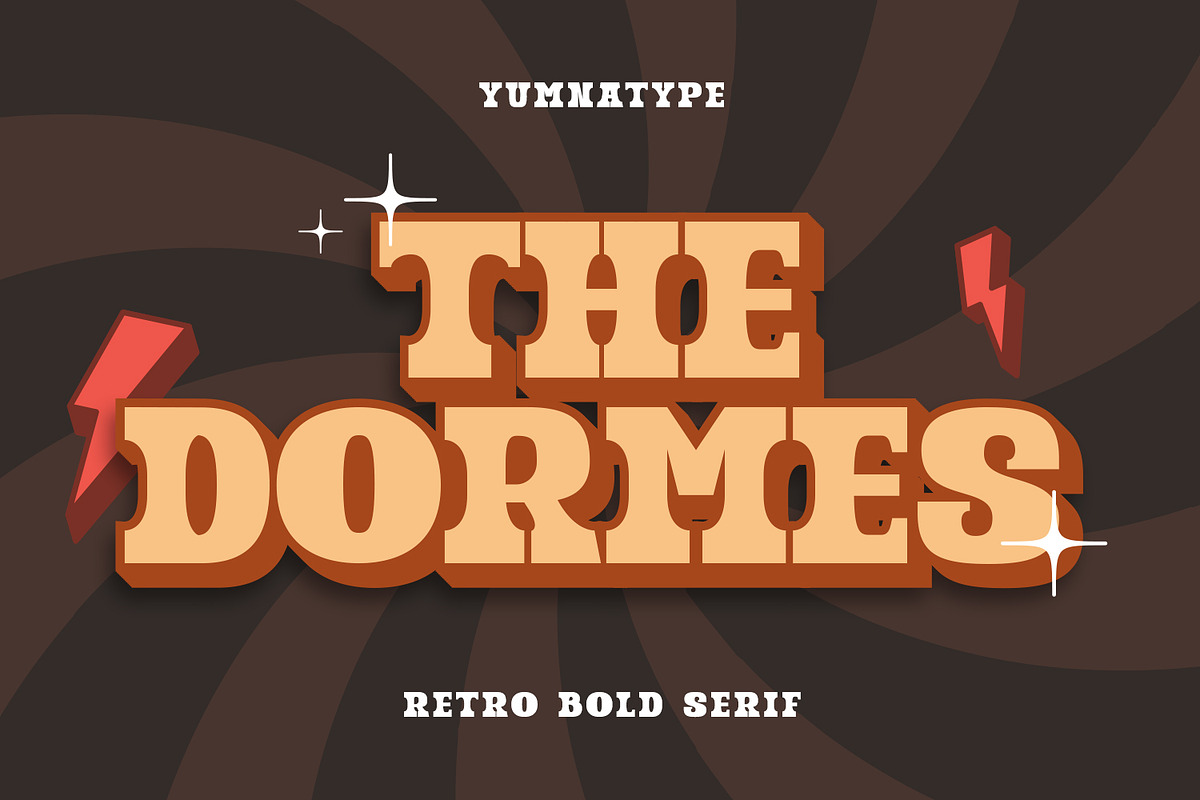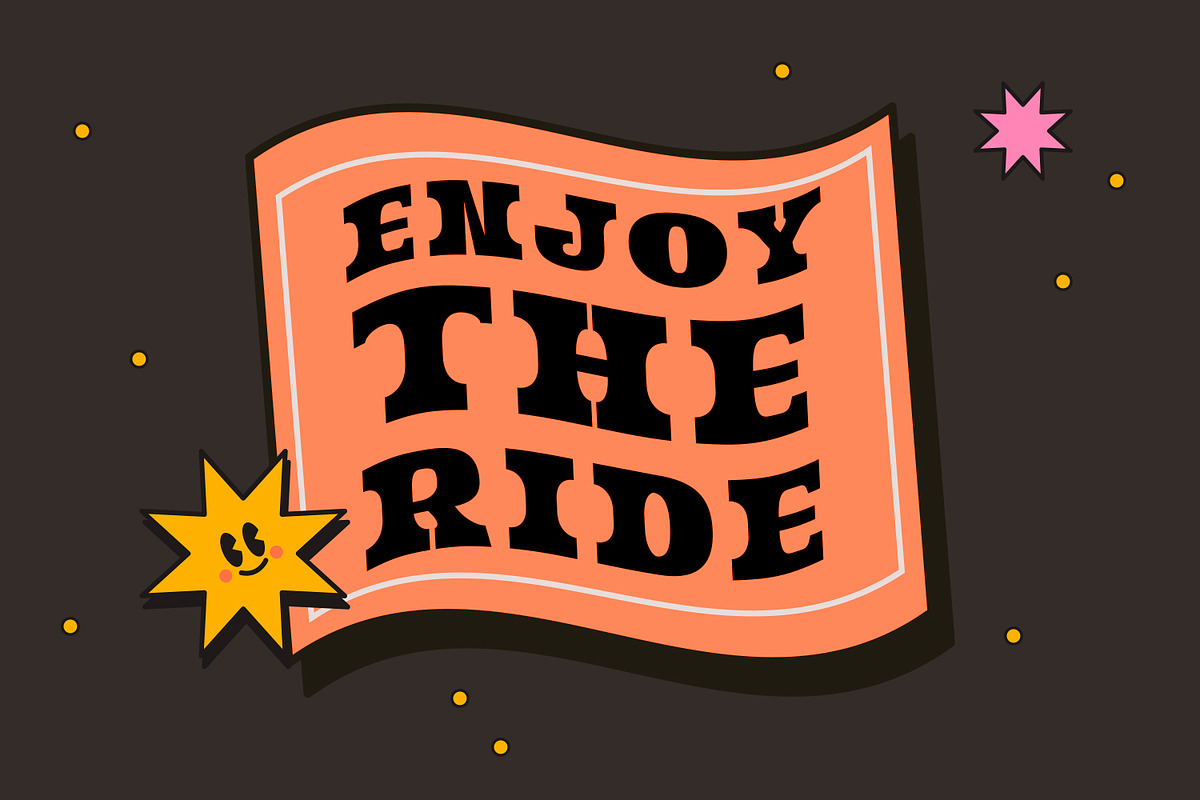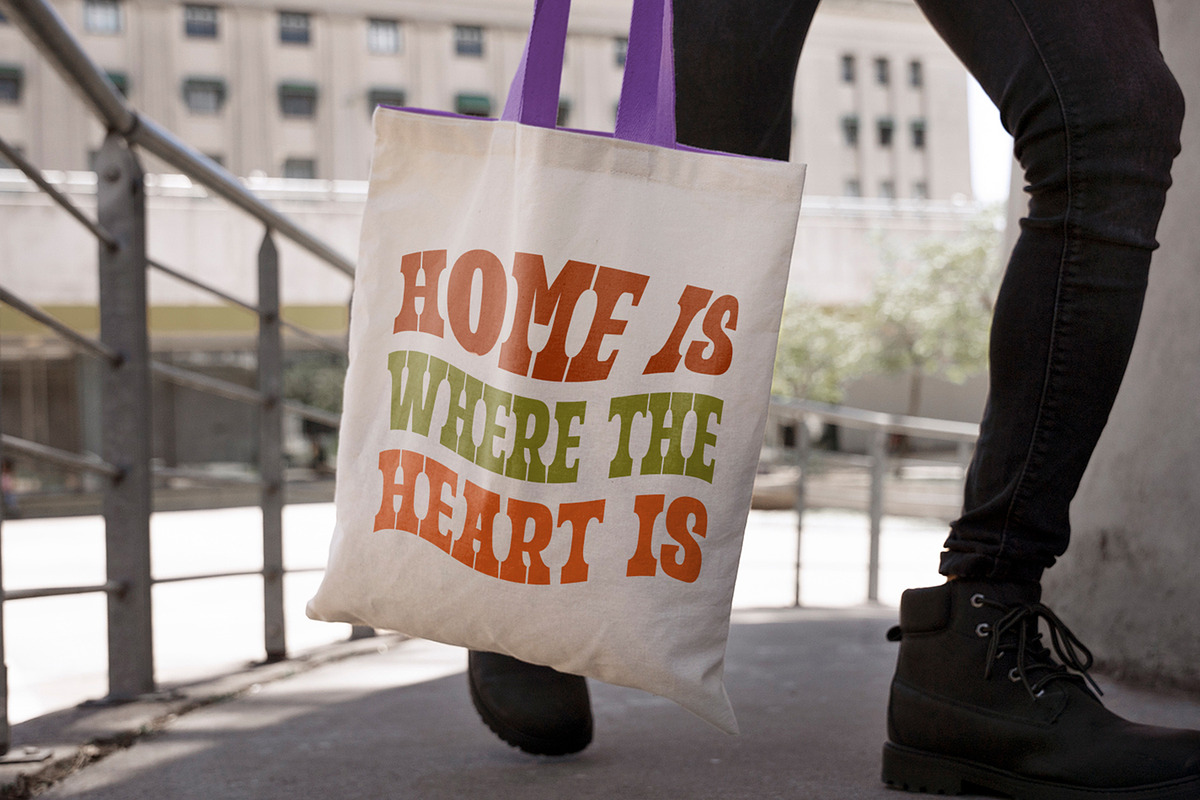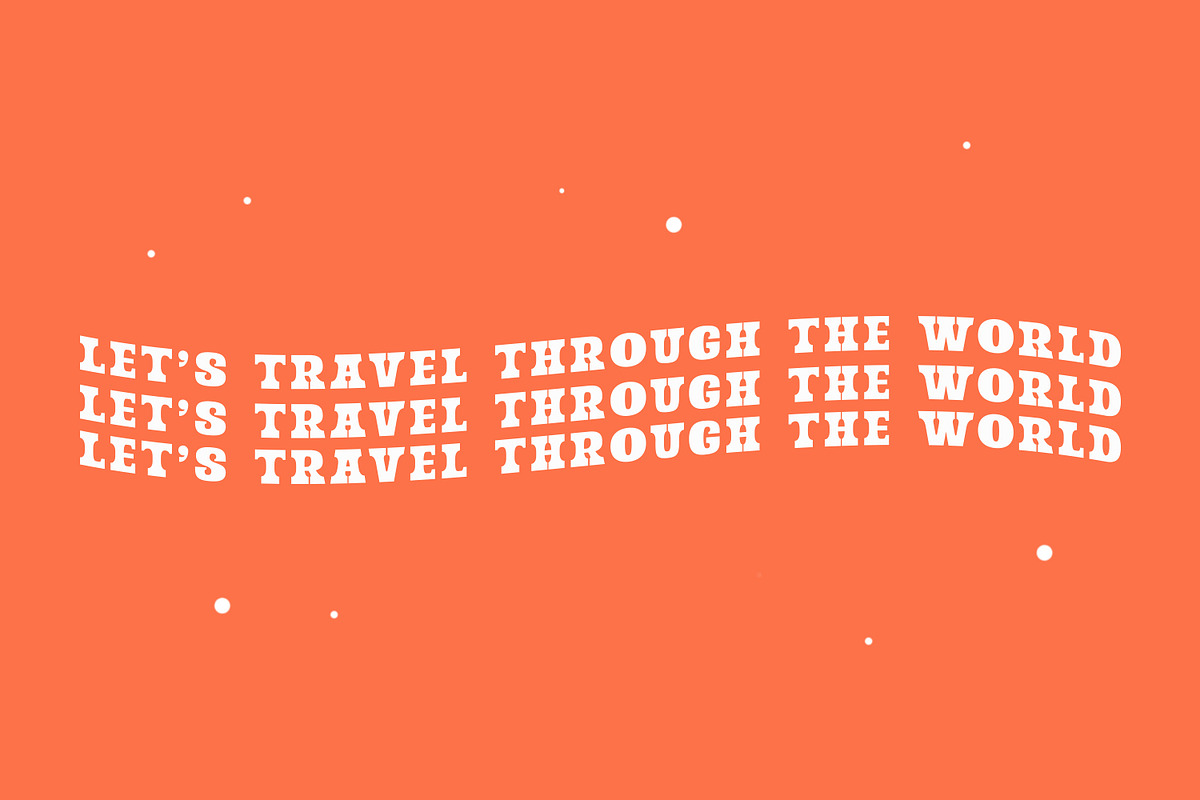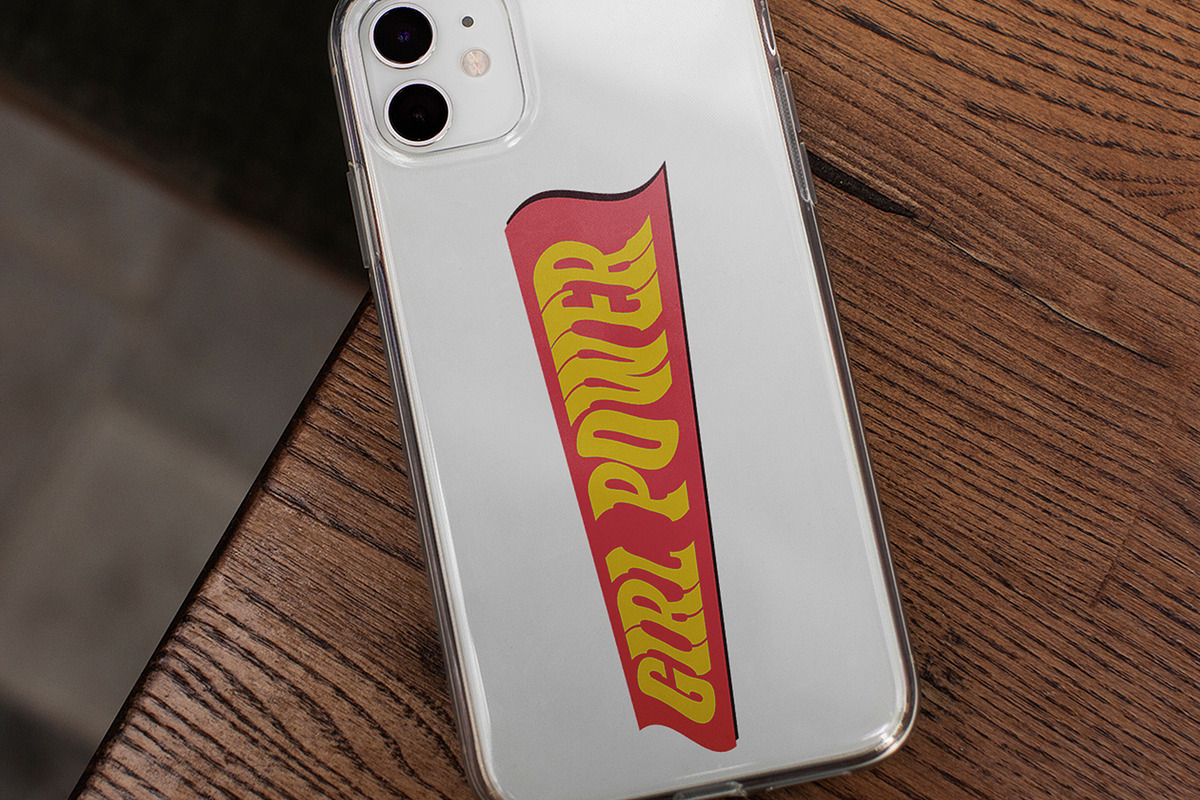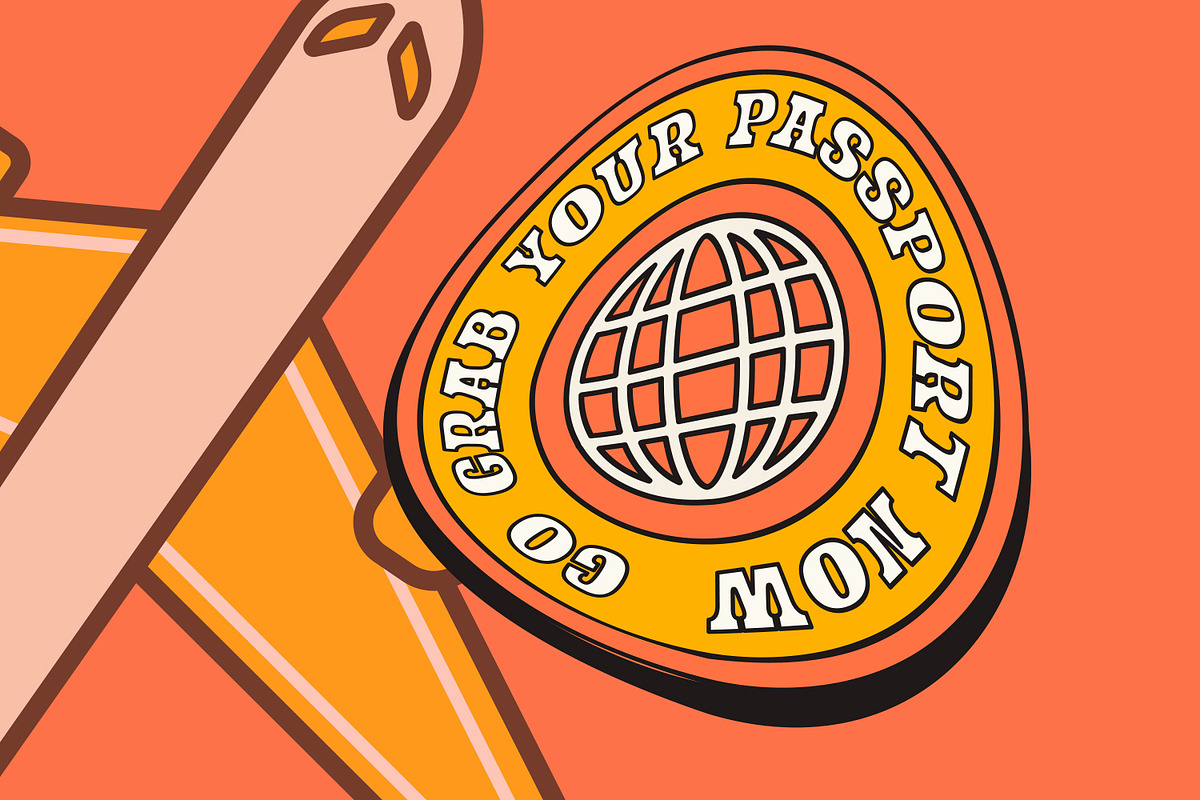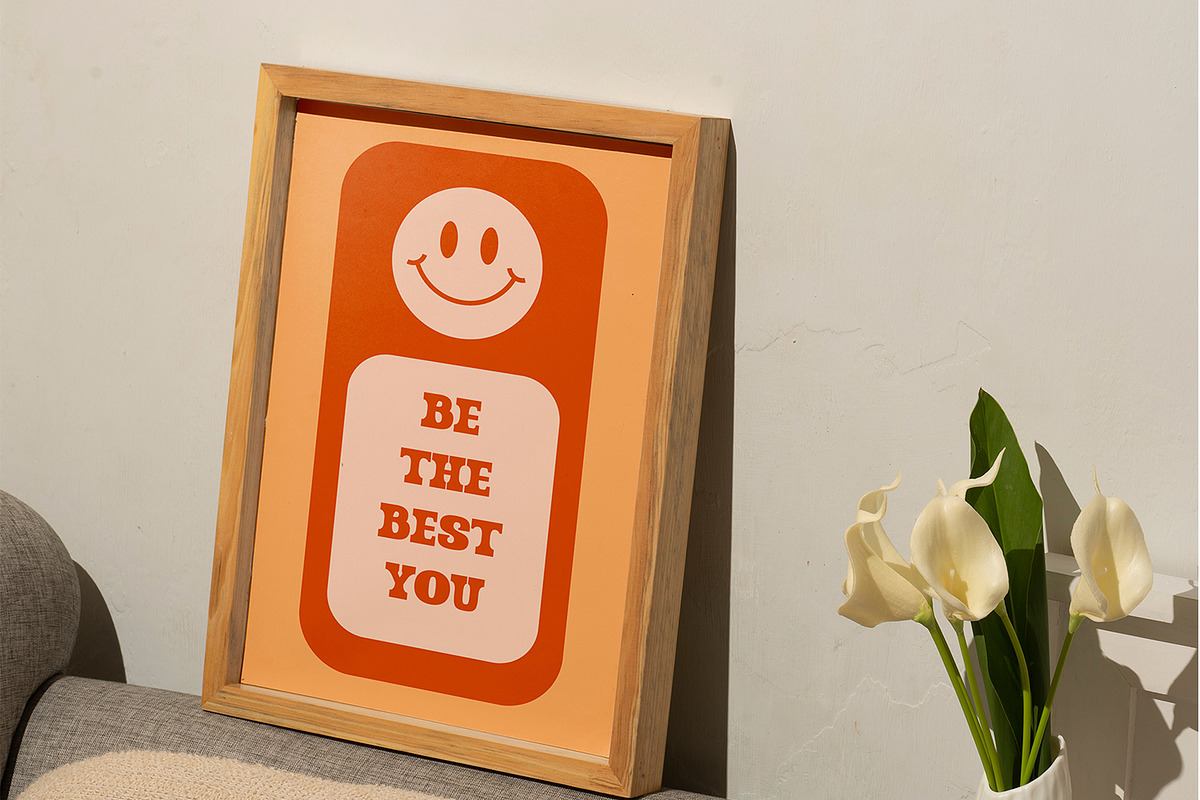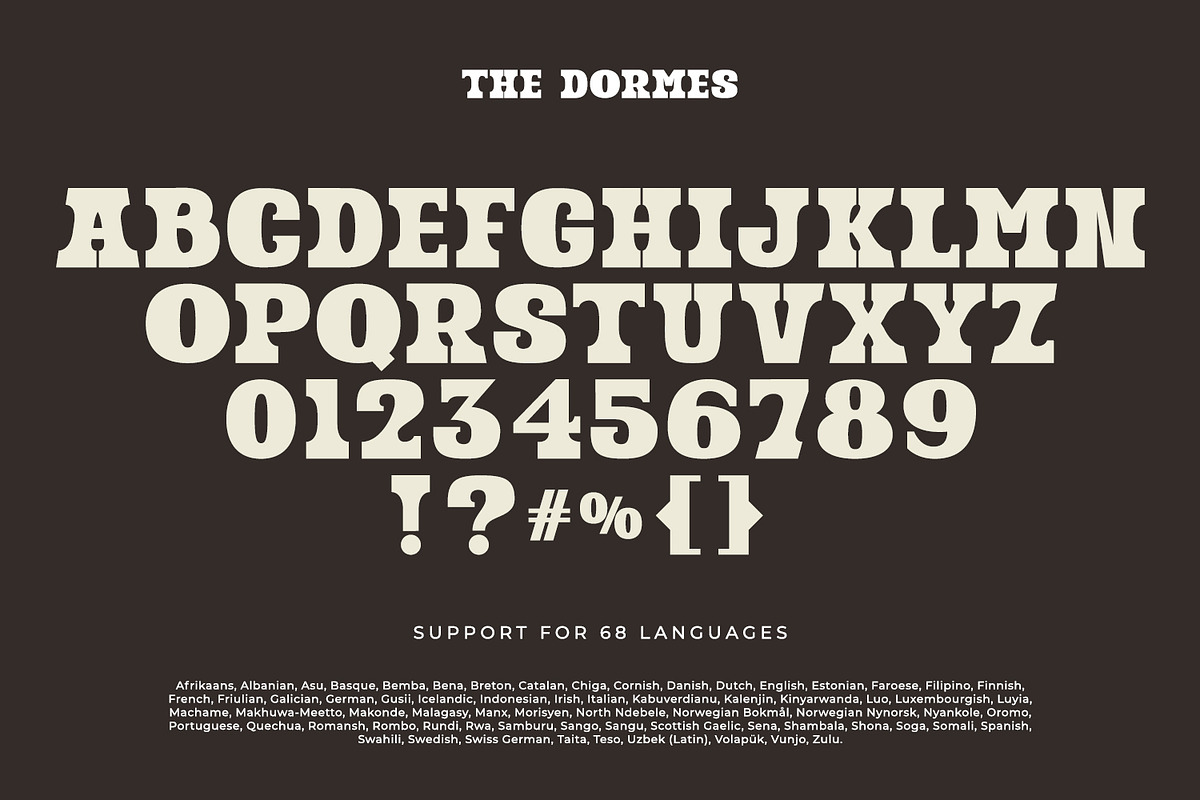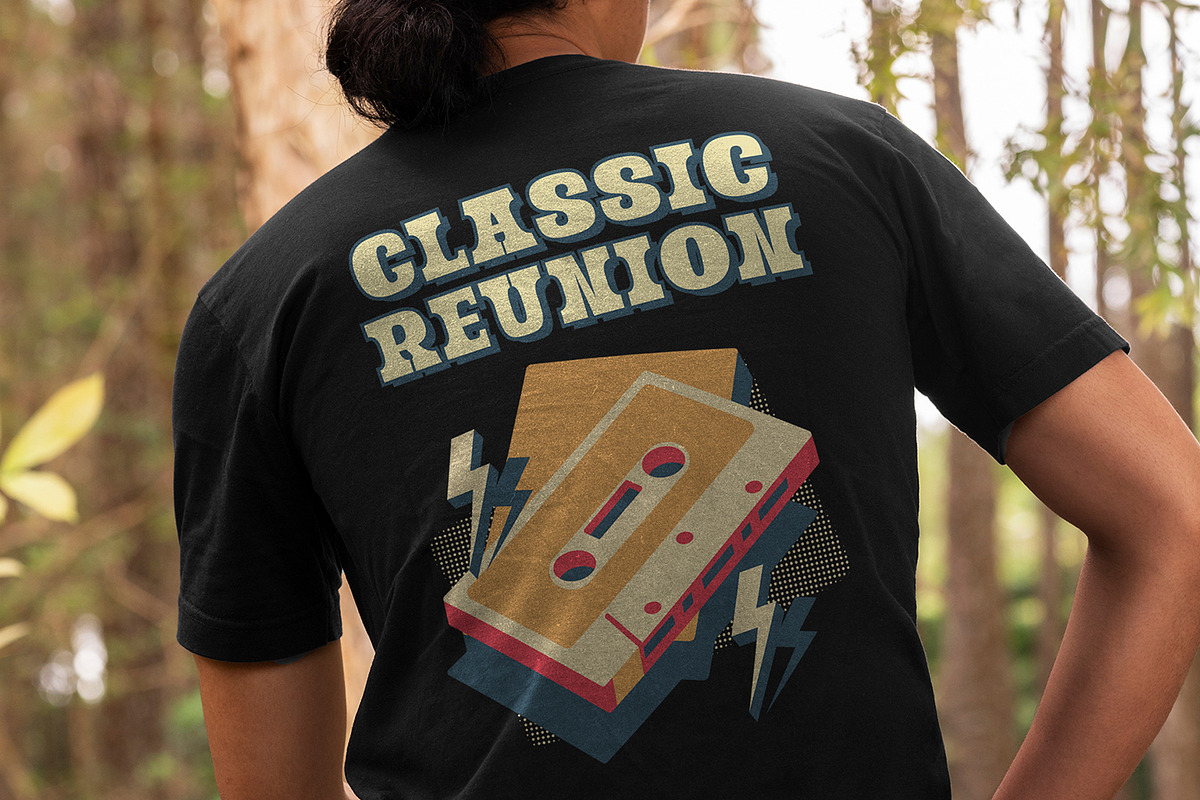
The Dormes
The Dormes is a bold, all-caps serif font that captures the essence of retro design. Its robust weight and rounded shapes give it a distinctive and eye-catching appeal, perfect for projects that aim to evoke a sense of vintage charm. The serif elements are thoughtfully designed to enhance the font's retro aesthetic, adding character and flair to each letter. The Dormes brings a touch of the past into the present with its unique and memorable design. In addition, enjoy the features here.
The Dormes fits in headlines, logos, posters, flyers, branding materials, print media, editorial layouts, and many more designs. Find out more ways to use this font by taking a look at the font preview.